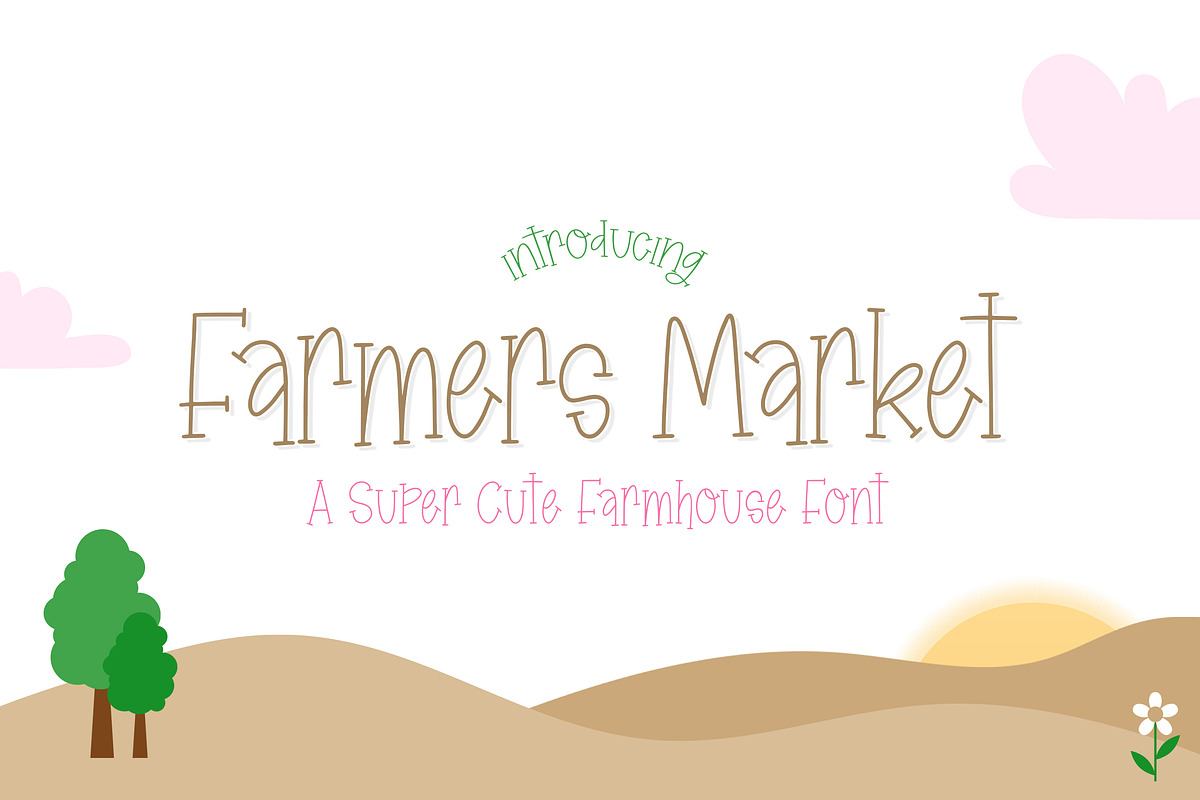
The Farmers Market Font Free Download is a rustic and charming typeface designed to capture the essence of handmade, fresh, and organic designs. With its natural, slightly textured letterforms, this font is perfect for farmers' market branding, food packaging, eco-friendly products, and anything that evokes a sense of simplicity and authenticity.
Farmers Market Font Free Download is ideal for designers who want to create warm, inviting designs with an organic, farm-to-table feel. Whether you're working on signage, product labels, or marketing materials, this font will add a rustic, homegrown vibe to your projects. Download this down-to-earth font today and bring a touch of charm to your designs!